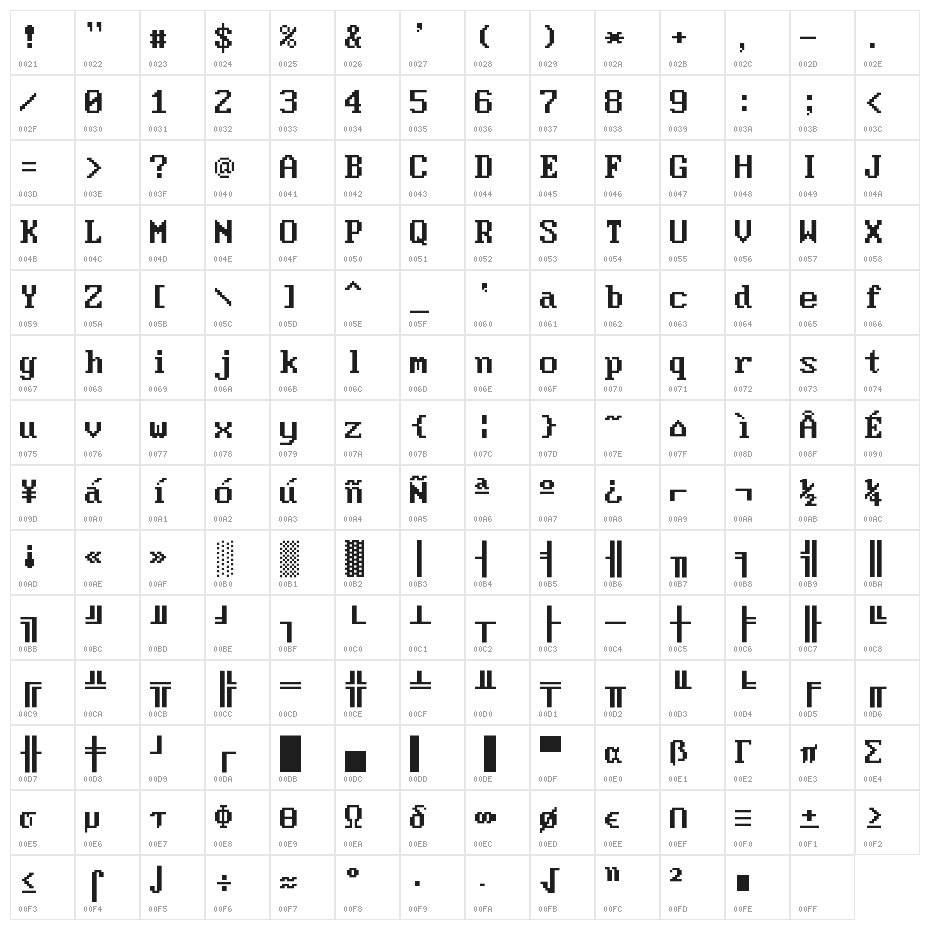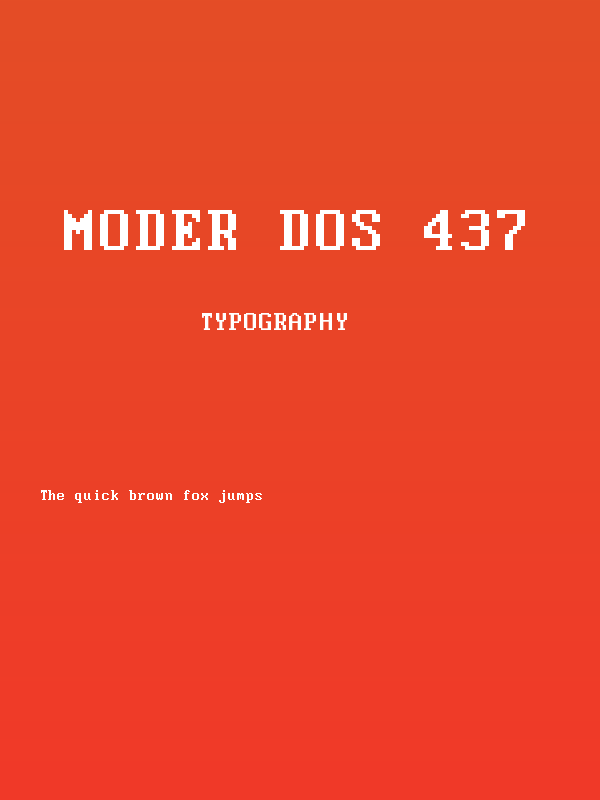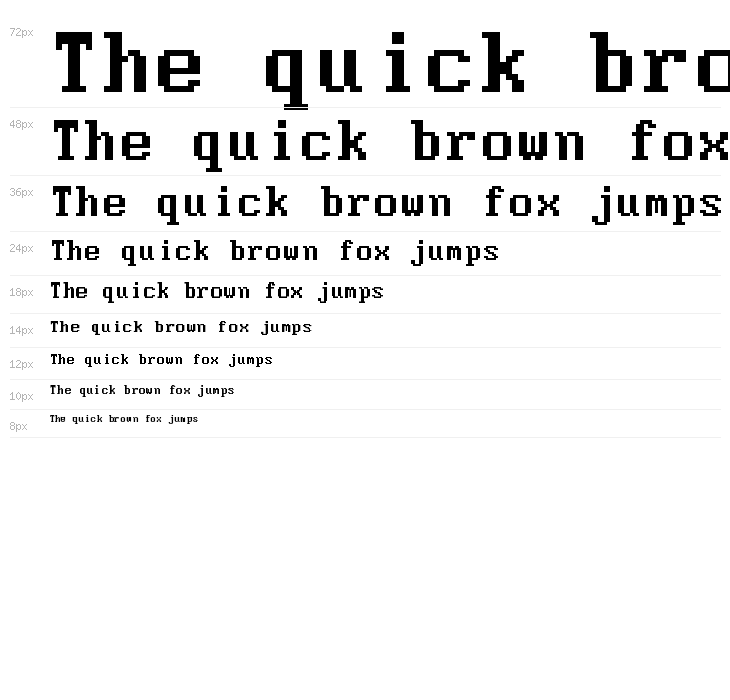
Moder DOS 437 Font
Moder DOS 437 Description
This font is a classic representation of pixelated, monospaced typefaces reminiscent of early computer displays. Each character is constructed with a grid-like precision, giving it a distinctly retro and digital appearance. The uniformity in character width ensures a consistent and orderly presentation, ideal for coding environments or retro-themed designs. The uppercase and lowercase letters maintain a blocky, geometric style, while the numerals and special characters follow the same structured aesthetic. This font evokes nostalgia for the early days of computing, making it a perfect choice for projects that aim to capture a vintage digital feel.
Overall StyleVintage
Use CaseCoding, Digital art, Retro designs
Proposed ProjectsIdeal for retro video games, coding interfaces, digital art projects, and nostalgic branding.